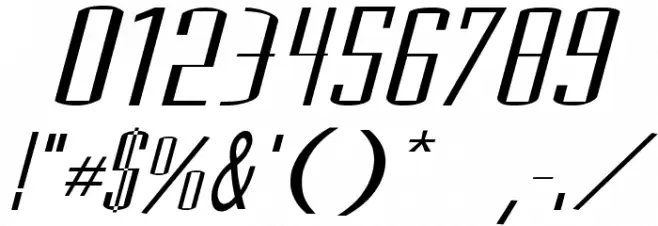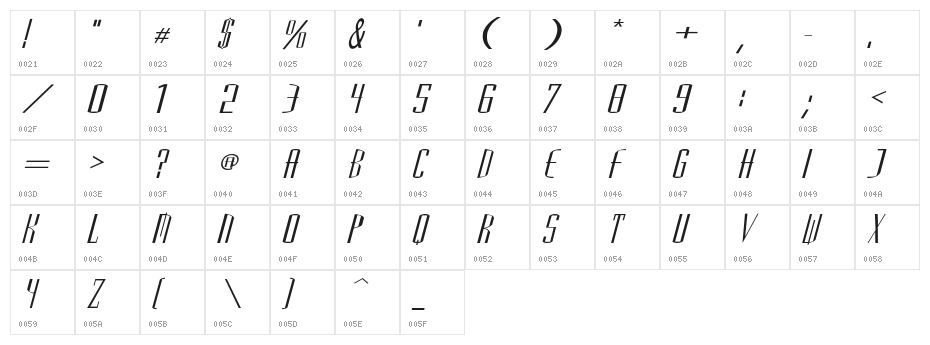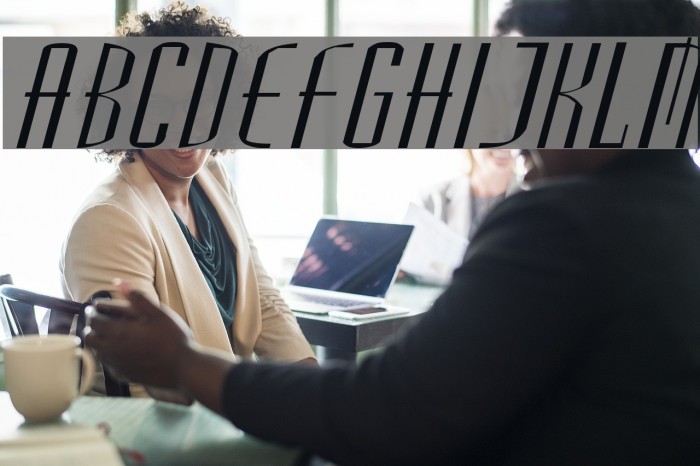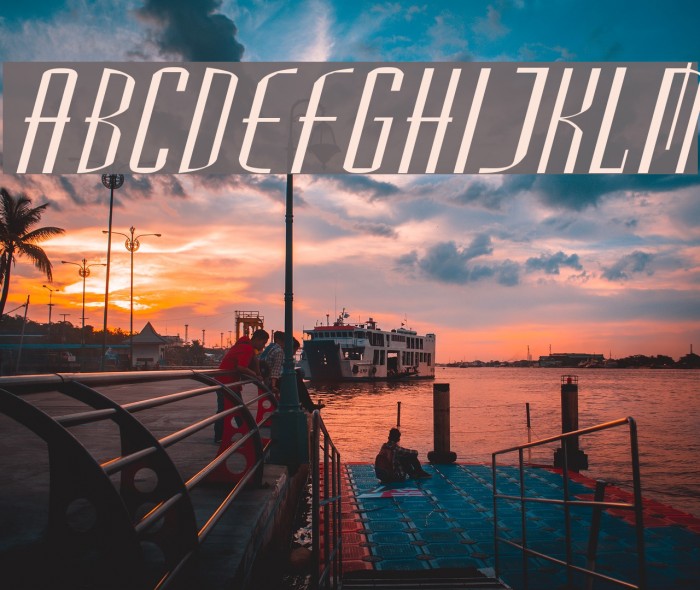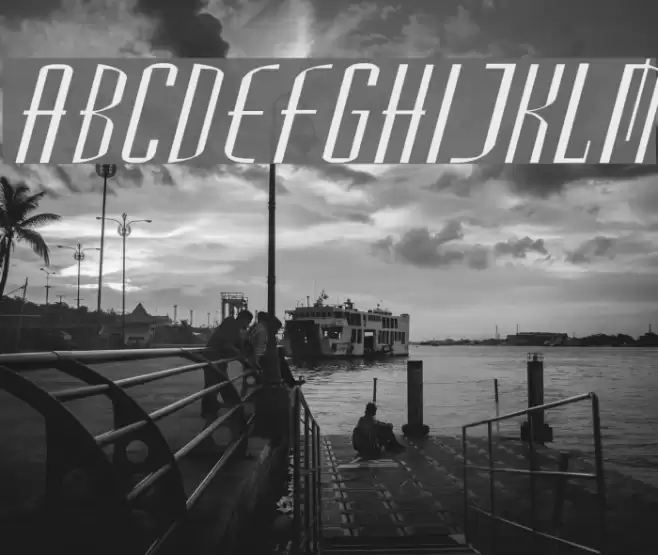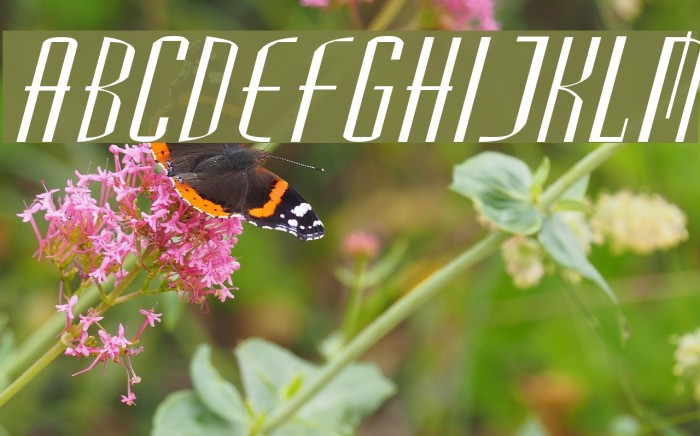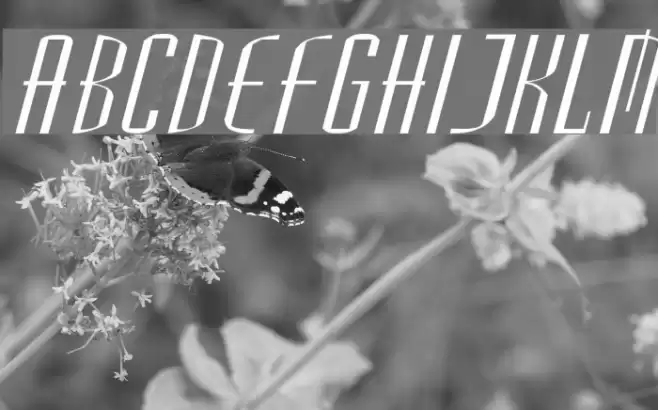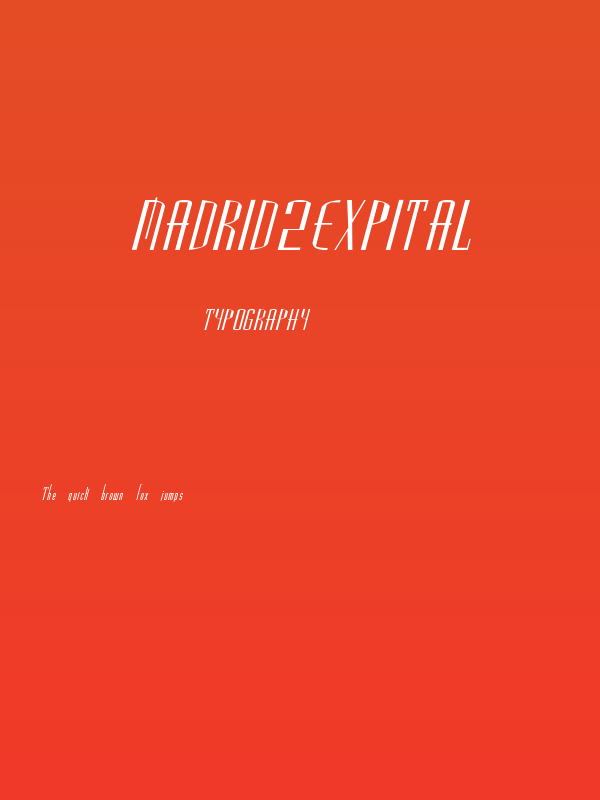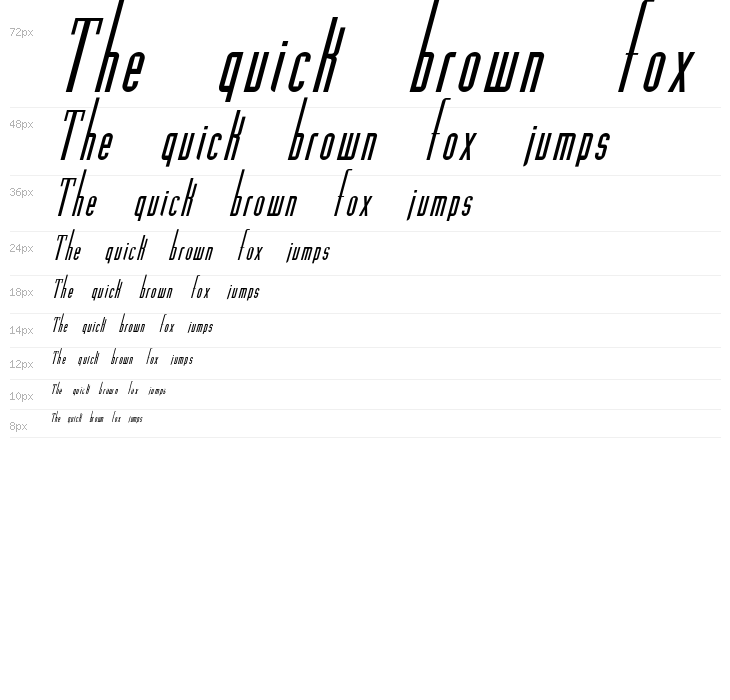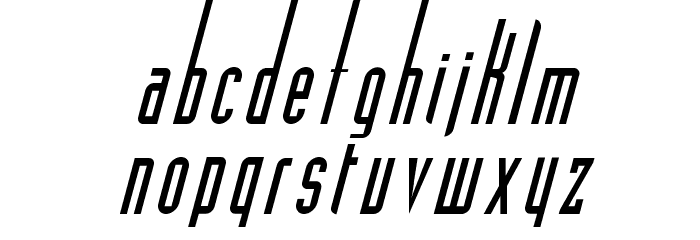
Madrid2ExpItal Font
Madrid2ExpItal Description
This font features a sleek and modern design with elongated, narrow characters that convey a sense of speed and elegance. The letters are slightly italicized, adding a dynamic and forward-moving appearance. The strokes are consistent in thickness, providing a medium contrast that enhances readability while maintaining a stylish look. The uppercase and lowercase letters are well-proportioned, and the numerals are distinct, making them suitable for various applications. Special characters are included, offering versatility for different design needs.
| Use Case | Headlines, Logos, Editorial design |
| Proposed Projects | Ideal for branding, advertising, and editorial design projects that require a contemporary and dynamic aesthetic. |